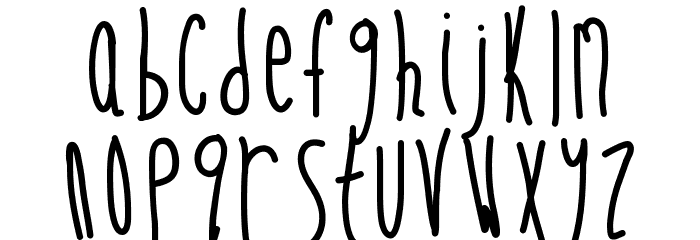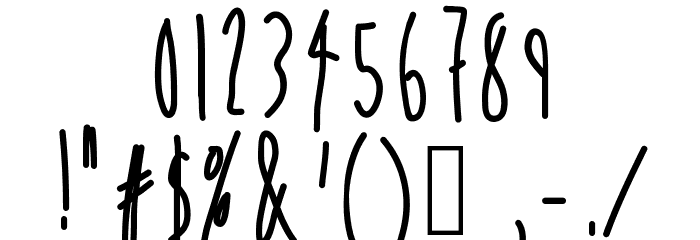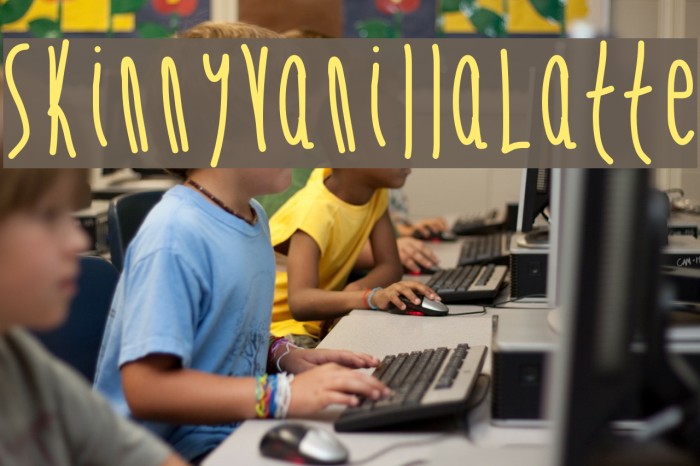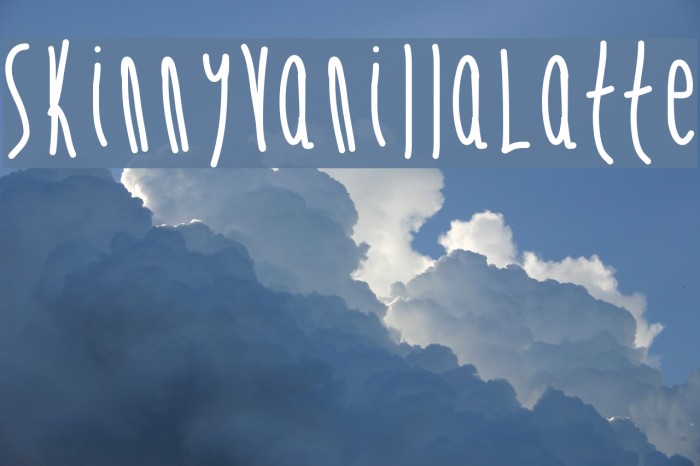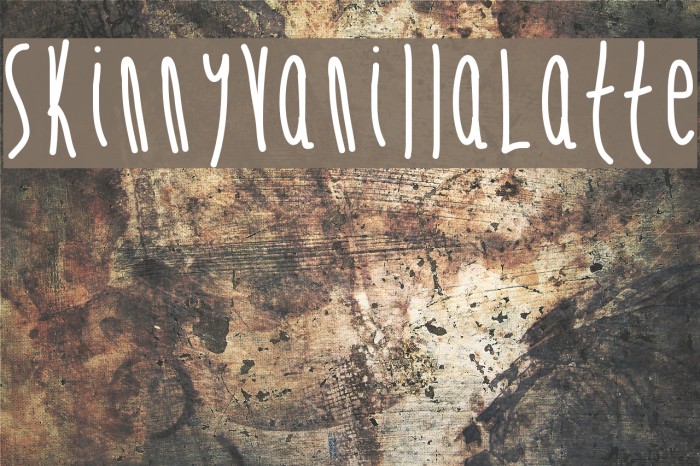
SkinnyVanillaLatte Font
This font features a playful and casual handwritten style, characterized by its tall and narrow letterforms. The strokes are uneven, giving it a whimsical and informal appearance. The uppercase and lowercase letters maintain a consistent height, which adds to its quirky charm. Numbers and special characters follow the same playful aesthetic, making it versatile for creative projects. The font's unique personality is perfect for designs that require a touch of fun and individuality.
A playful, handwritten font with tall, narrow letters and a whimsical style.
- Proposed Projects: Ideal for greeting cards, children's books, playful branding, and social media graphics.
- Width: Condensed
- Overall Style: Casual
- Use Case: Headlines, Logos, Informal Text